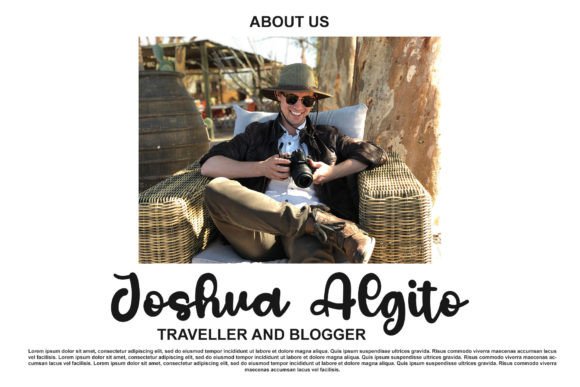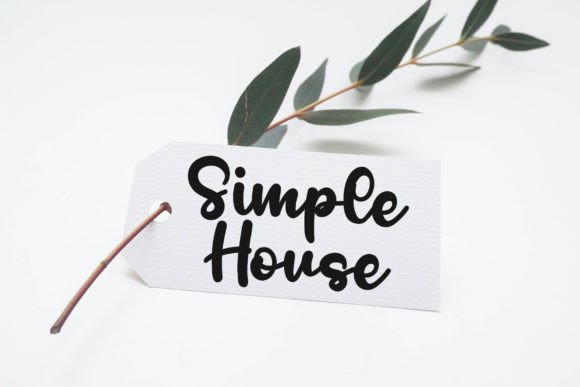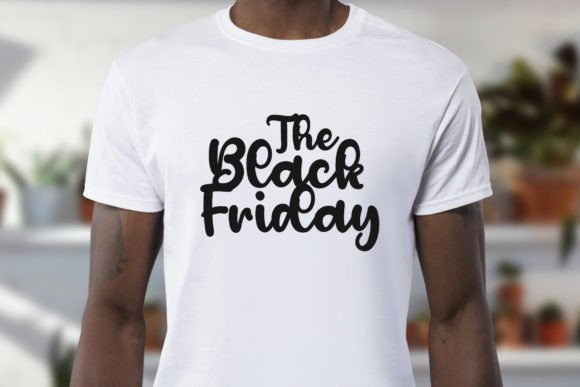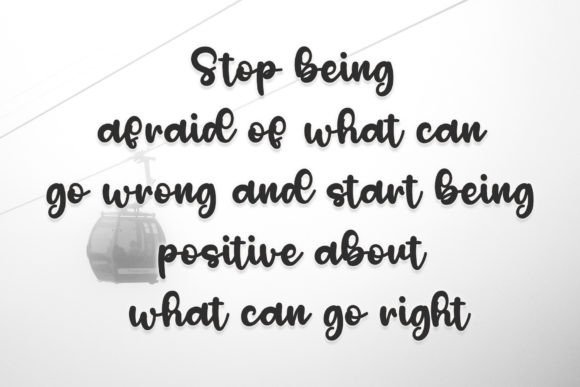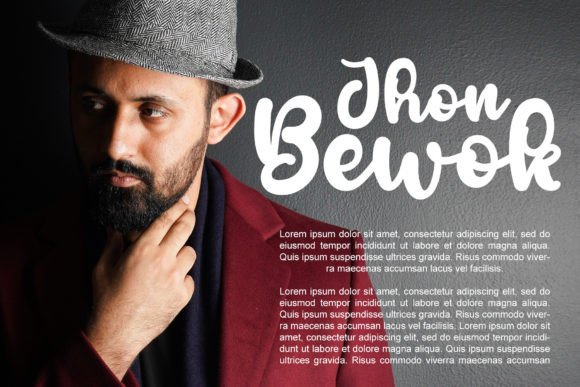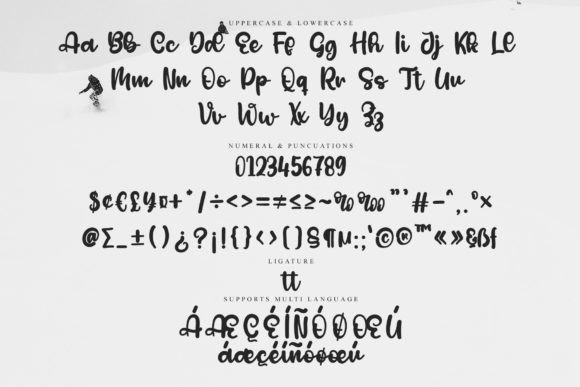
Introducing Blocking Font: Elevate Your Designs with a Stylish Handwritten Touch
In the world of design, fonts play a crucial role in conveying the tone and personality of a brand or project. If you’re on the hunt for a stylish and modern handwritten font that can elevate your creations, look no further than Blocking Font. This versatile font is suitable for a wide spectrum of applications, from greeting cards to headlines, branding, and packaging, making it a must-have for designers and crafters alike.
What is Blocking Font?
Blocking Font is a beautifully crafted handwritten font that boasts a unique and stylish aesthetic. Its modern design makes it perfect for those looking to add a touch of sophistication to their projects. Whether you’re working on a personal project or a professional one, Blocking Font is sure to impress.
Key Features of Blocking Font
- Handwritten aesthetic: Blocking Font has a beautiful, handwritten look that adds a personal touch to any project.
- Modern design: The font’s modern design makes it perfect for a wide range of applications, from digital to print.
- Versatile: Blocking Font can be used for everything from greeting cards to headlines, branding, and packaging.
- Easily readable: Despite its handwritten nature, Blocking Font is easy to read, making it perfect for body text and headlines.
Use Cases for Blocking Font
Blocking Font is an incredibly versatile font that can be used in a variety of contexts. Here are some use cases to get you started:
- Greeting cards: Add a personal touch to your greeting cards with Blocking Font’s beautiful handwritten aesthetic.
- Headlines: Use Blocking Font to create eye-catching headlines that grab attention.
- Branding: Blocking Font is perfect for branding projects, such as logos, business cards, and letterheads.
- Packaging: Add a touch of elegance to your packaging with Blocking Font’s modern design.
- Digital projects: Blocking Font can be used for digital projects, such as social media graphics, blog posts, and website headers.
Why Choose Blocking Font?
With so many fonts available, why choose Blocking Font? Here are just a few reasons:
- Unique aesthetic: Blocking Font has a unique and stylish aesthetic that will set your projects apart.
- High-quality design: The font is beautifully designed, with attention to detail and a focus on readability.
- Versatile: Blocking Font can be used in a wide range of contexts, making it a great addition to any designer’s toolkit.
Tips for Using Blocking Font
Here are a few tips for getting the most out of Blocking Font:
- Experiment with sizes: Blocking Font looks great in a variety of sizes, from small body text to large headlines.
- Pair with other fonts: Try pairing Blocking Font with other fonts to create a unique and interesting aesthetic.
- Use for emphasis: Use Blocking Font to add emphasis to certain words or phrases in your designs.